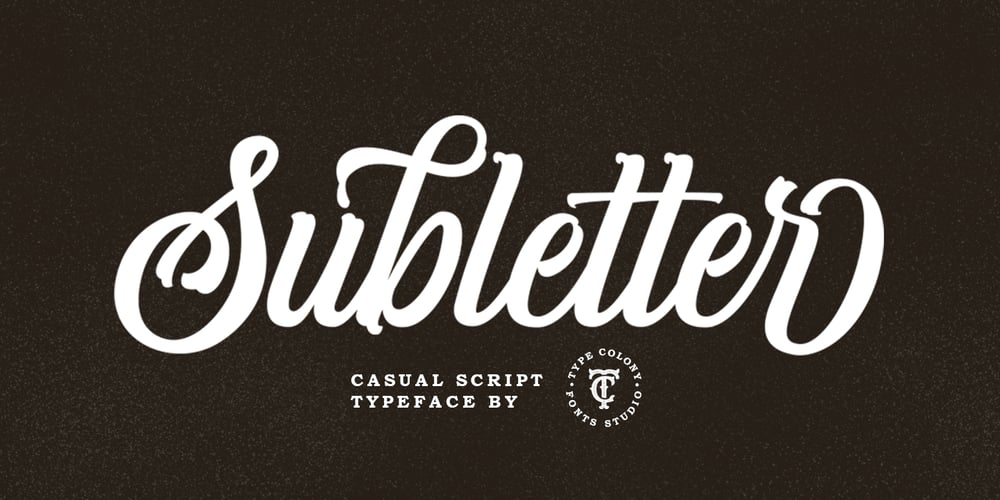
Subletter Font Family was designed by Aliv Pandu and published by Type Colony. Subletter contains 1 styles and family package options. Subletter Script is a casual script typeface with stylish style, clean, and great movement this typeface and allow you to make lettering and logotype quickly and easily. This typeface is inspired by brush lettering and sign painting that has strong styles and classy for using on project such as Logotype, Letterhead, Poster, Apparel Design, Label and etc.